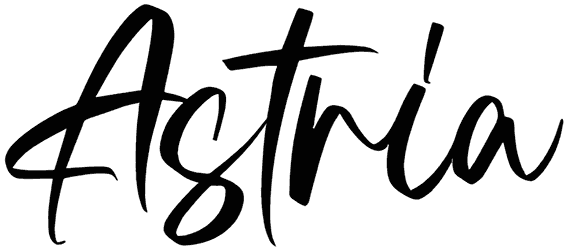
Astria Font
Astria strongly reminds us of handwritten fonts that are used today in wedding invitations, greeting cards, or personal letters. This script font can immediately attract the eyes and leave a lasting impression. So if you need a friendly and simple charm for your projects that looks completely natural, download Astria without wasting time and run your first project with it.